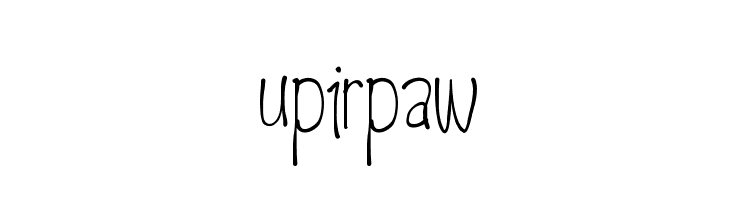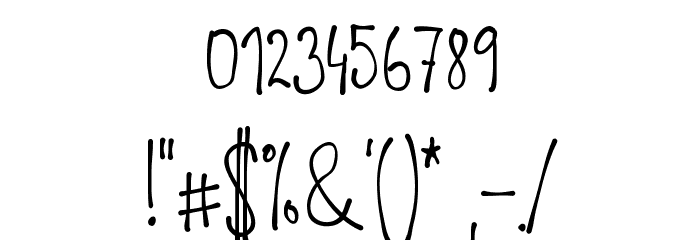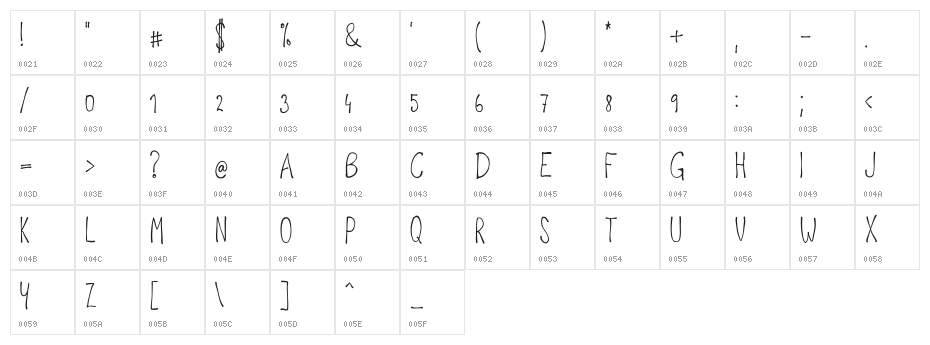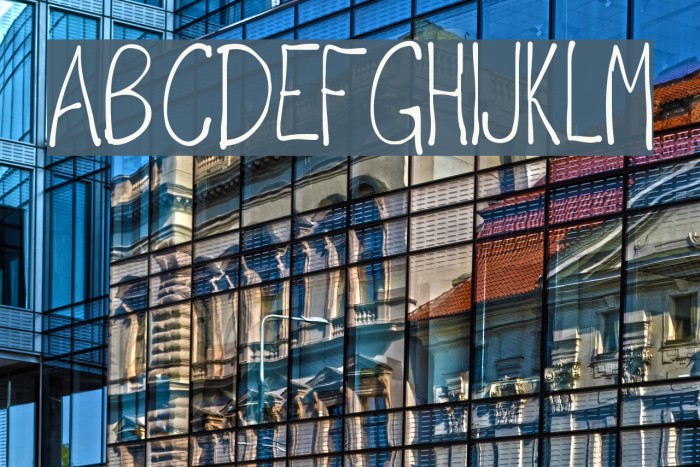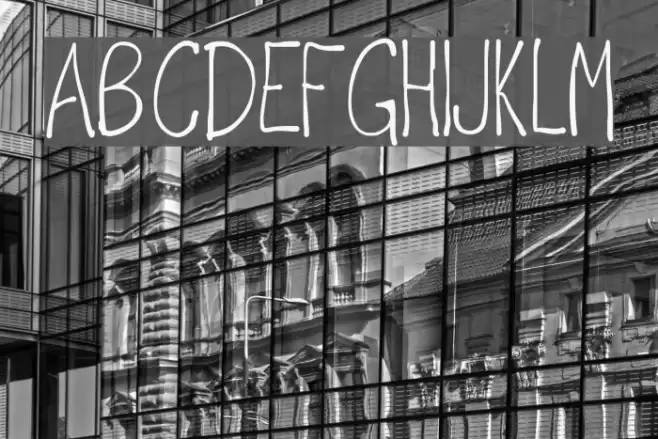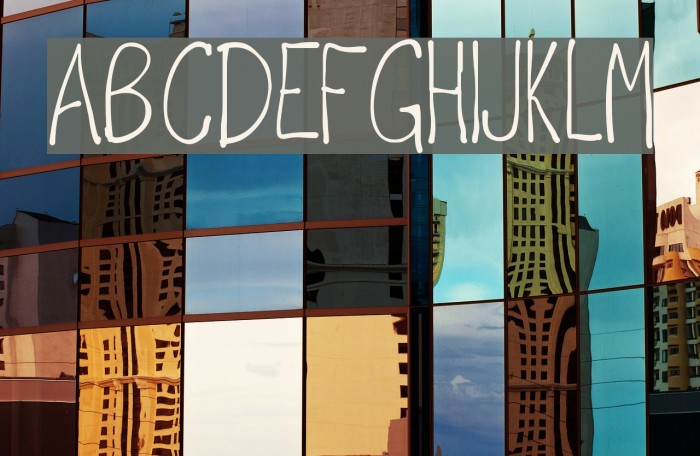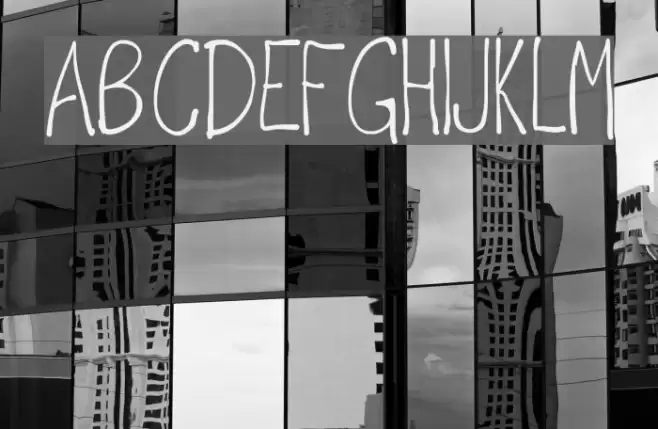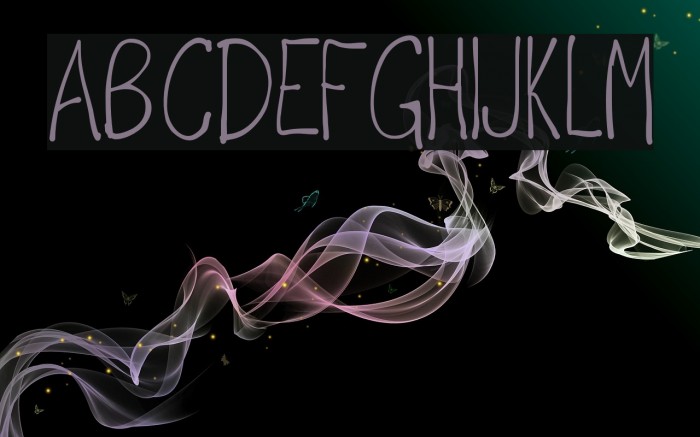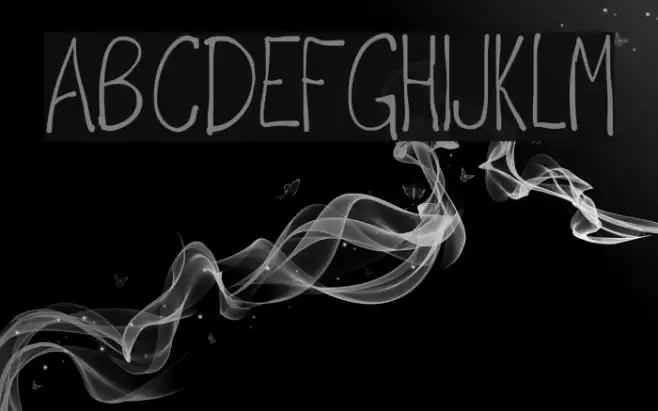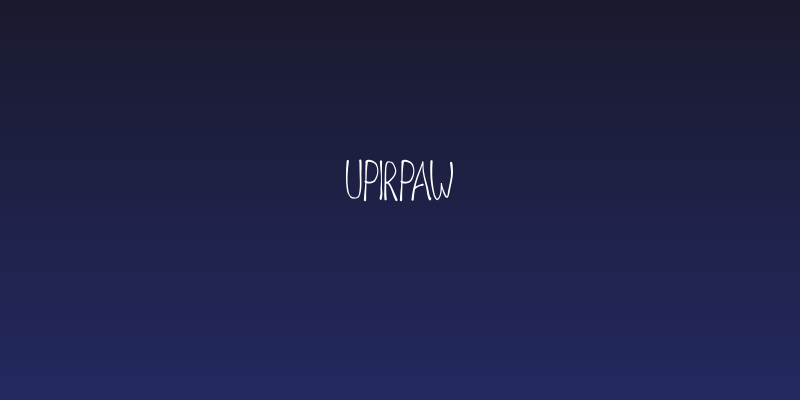
upirpaw Font
upirpaw Description
This font features a playful, handwritten style with a casual and informal appearance. The letters are slightly irregular, giving it a whimsical and friendly feel. The strokes are consistent in width, contributing to a uniform look despite the hand-drawn aesthetic. The uppercase and lowercase letters maintain a cohesive style, with rounded edges and a slight slant that adds to its charm. The numbers and special characters follow the same design principles, ensuring a harmonious overall appearance. This font is ideal for projects that require a personal touch or a creative flair.